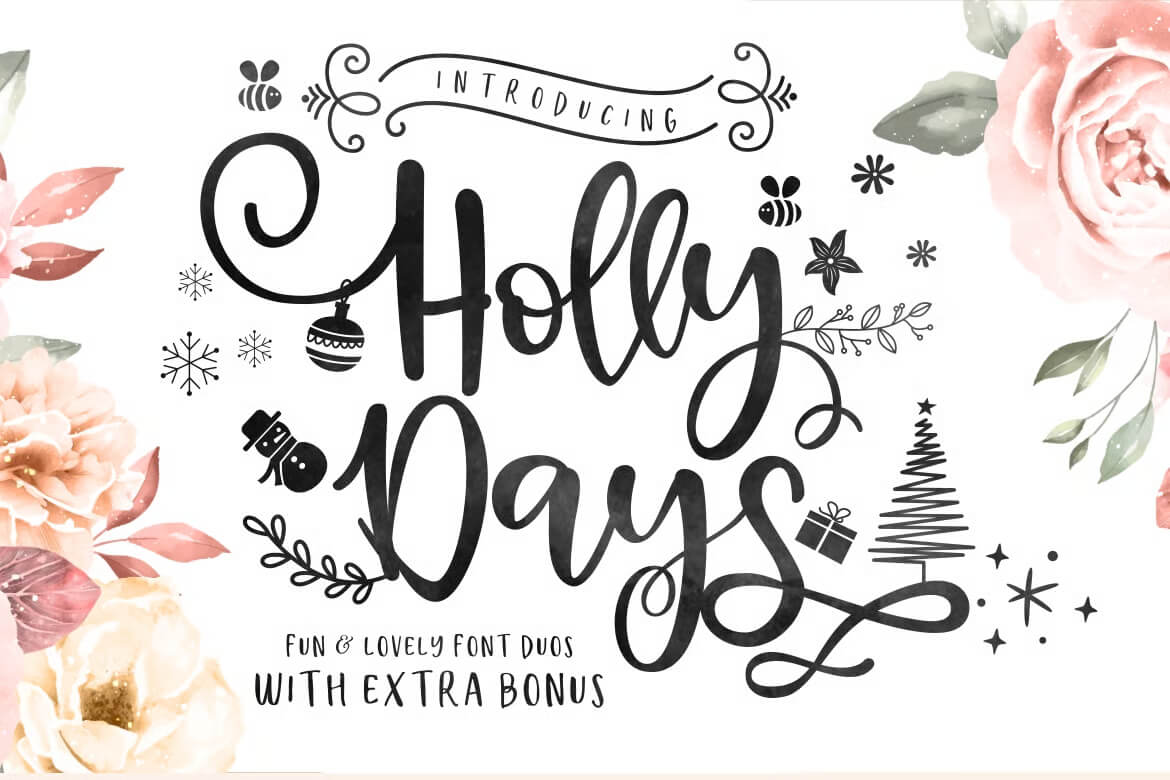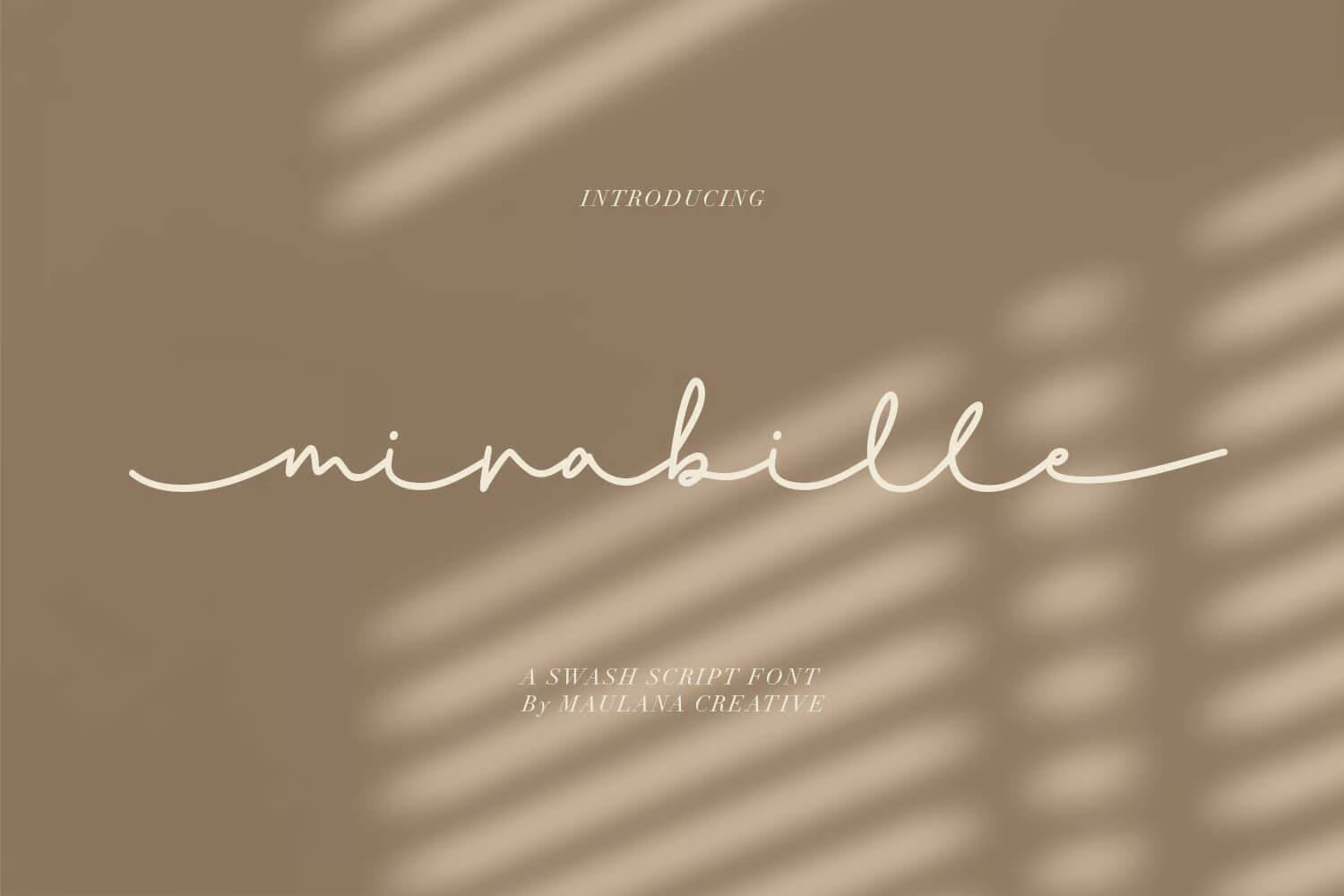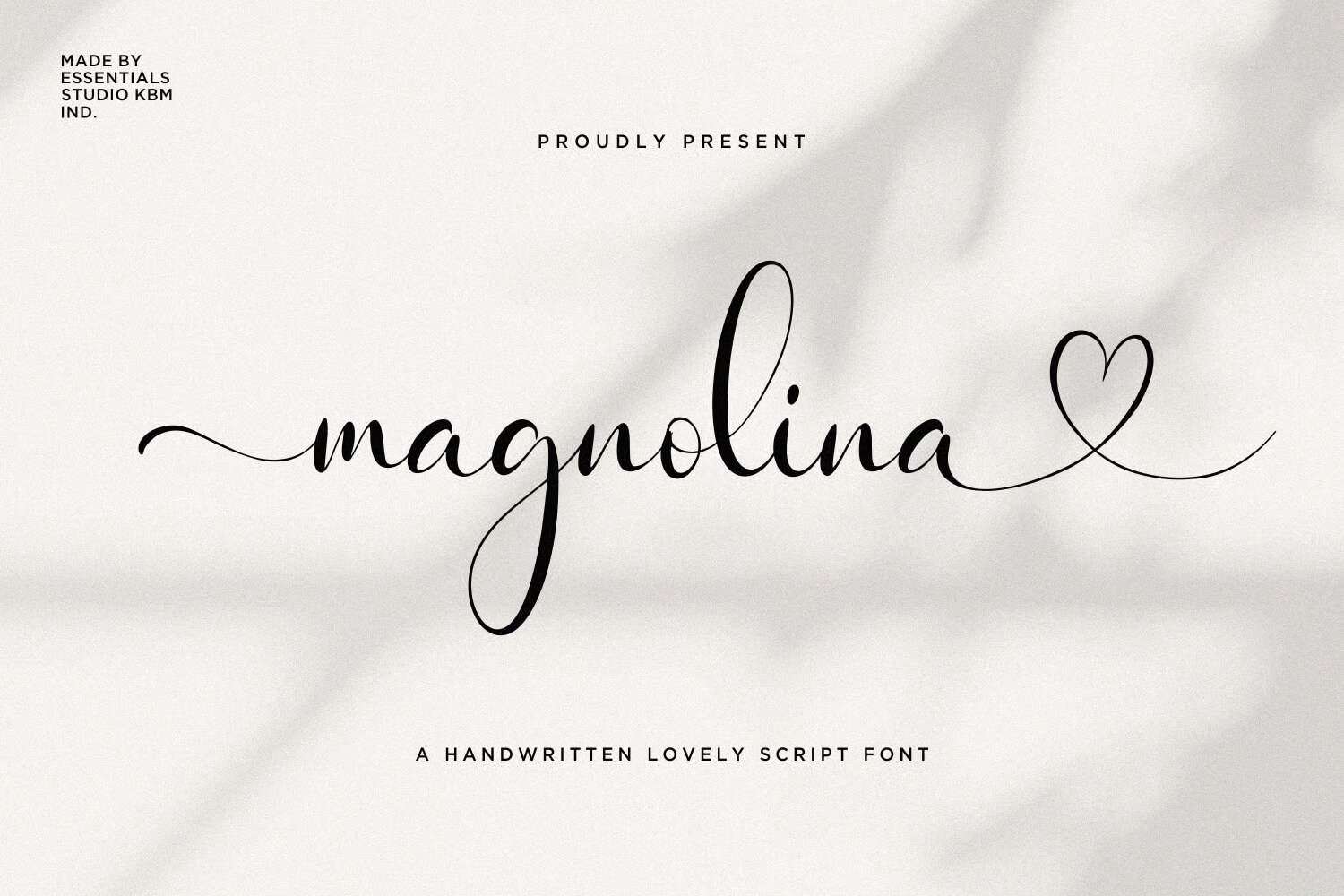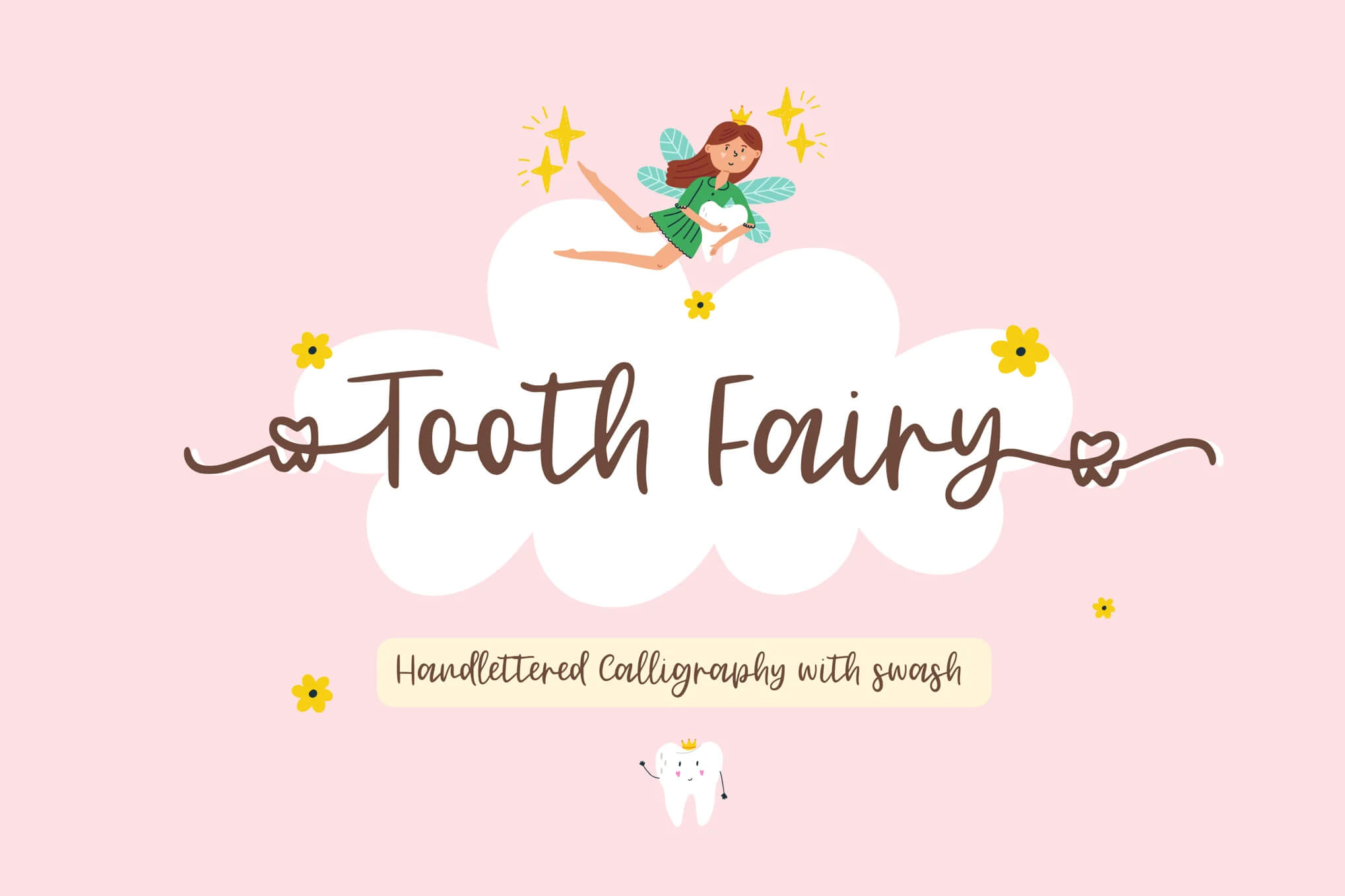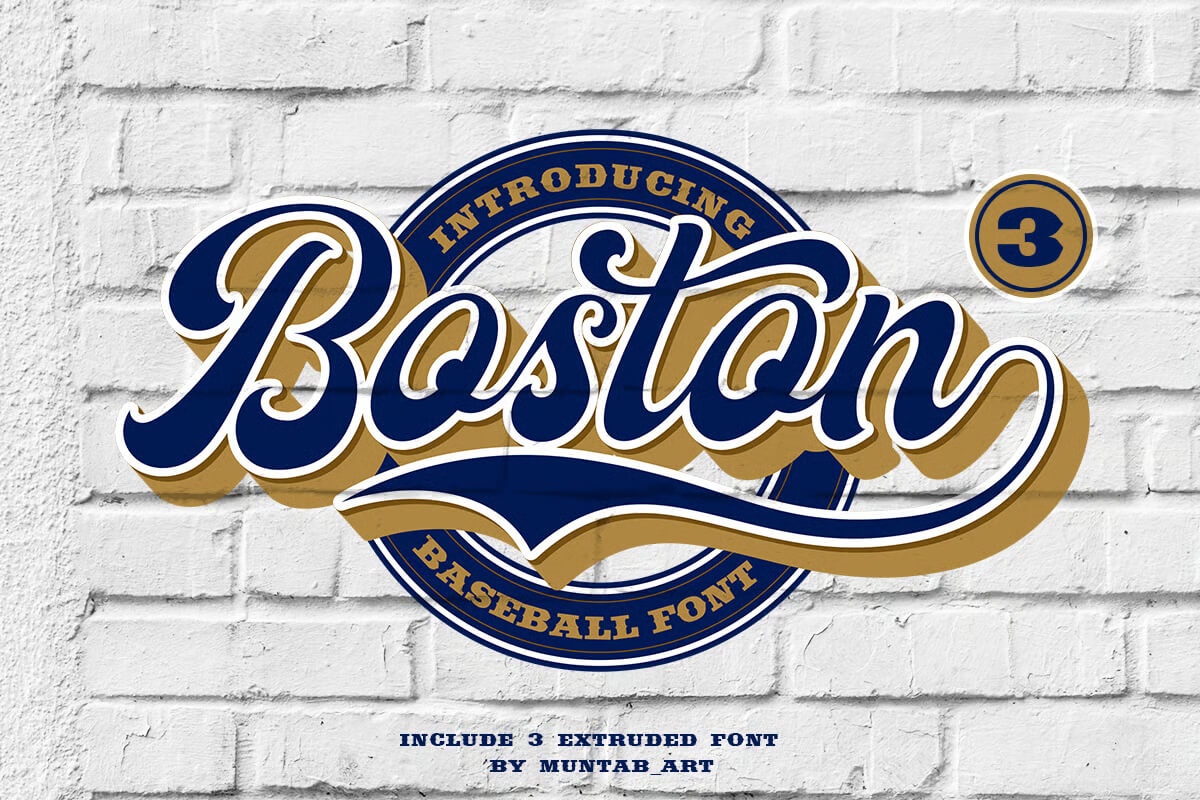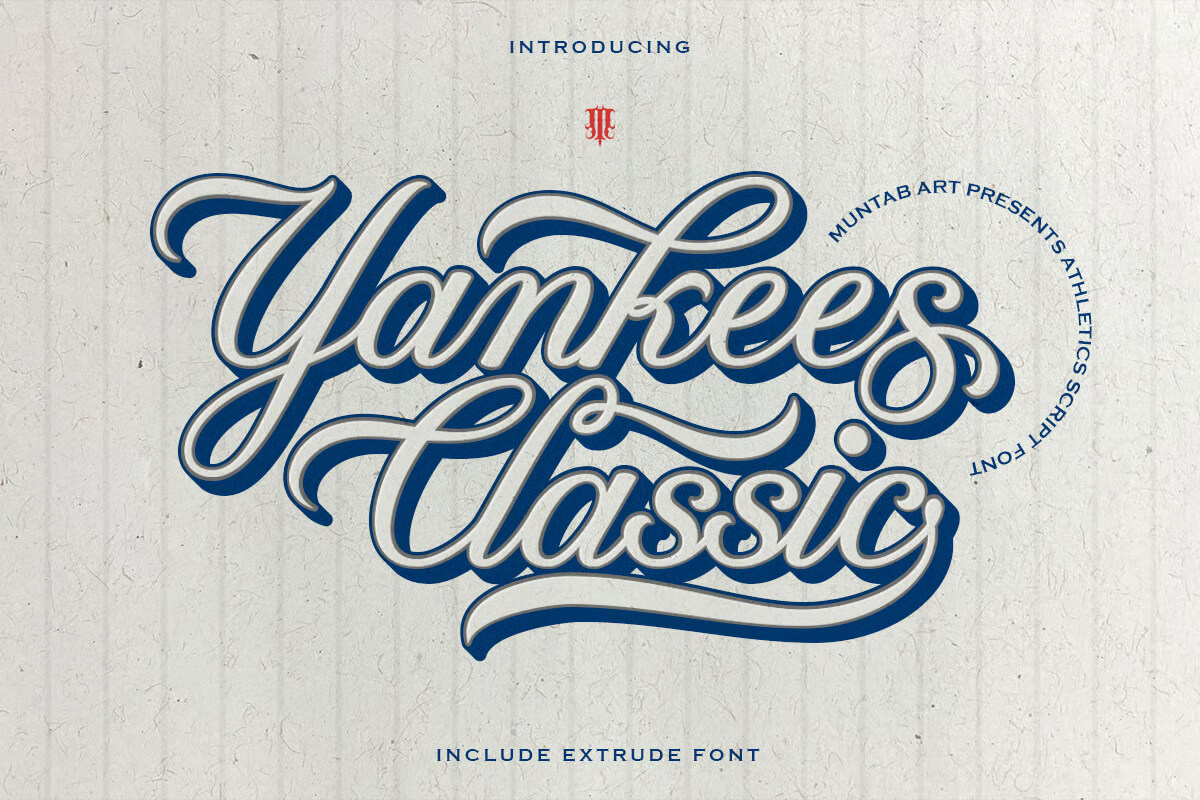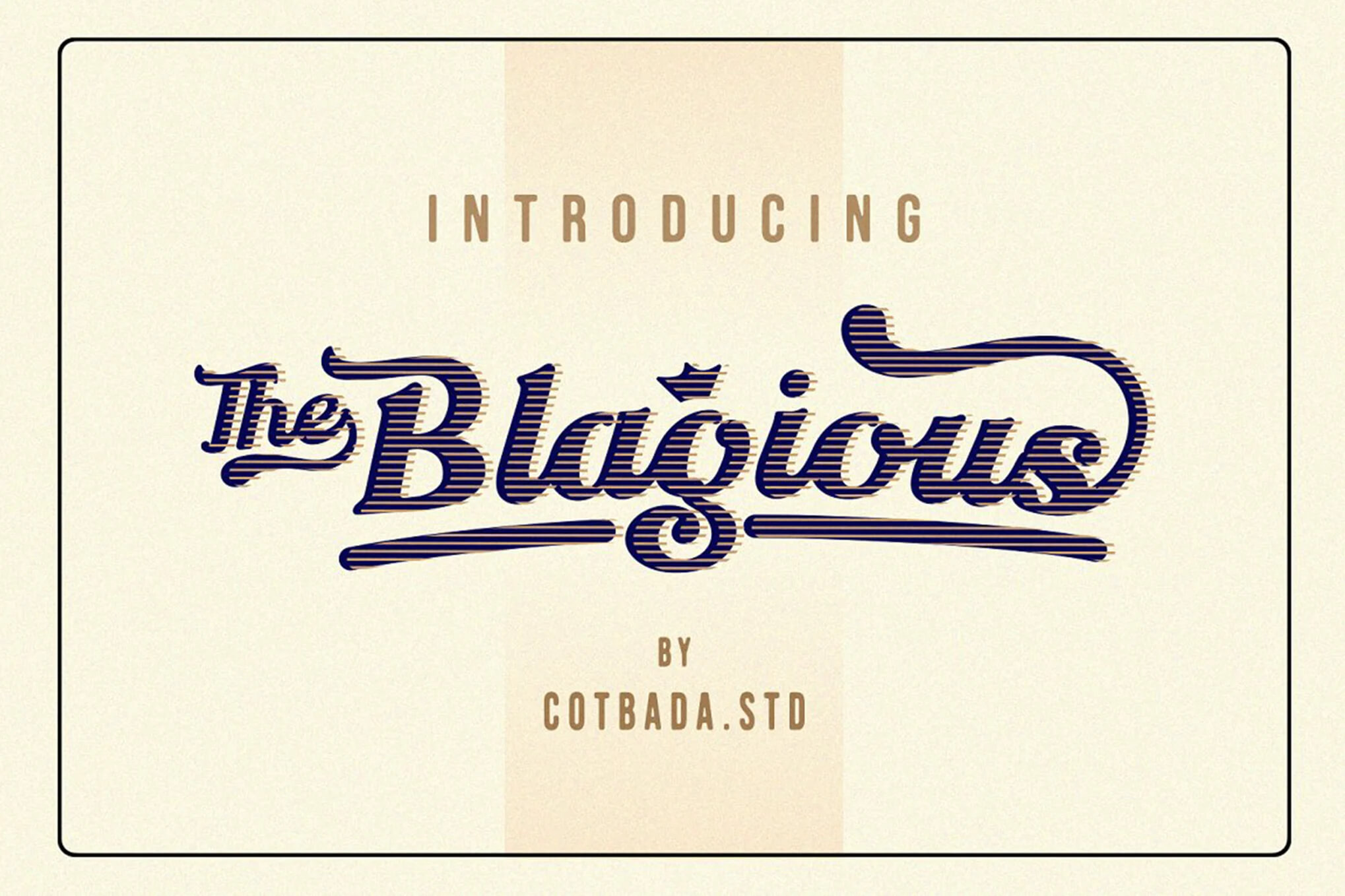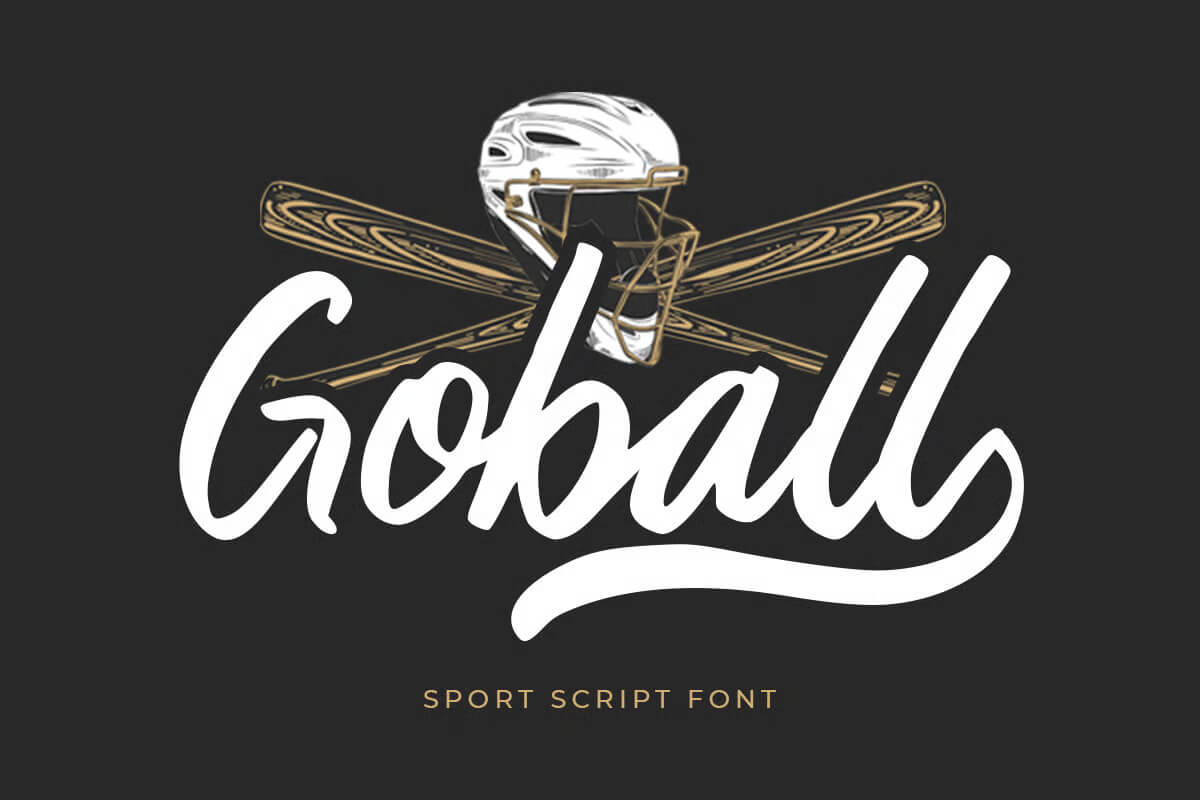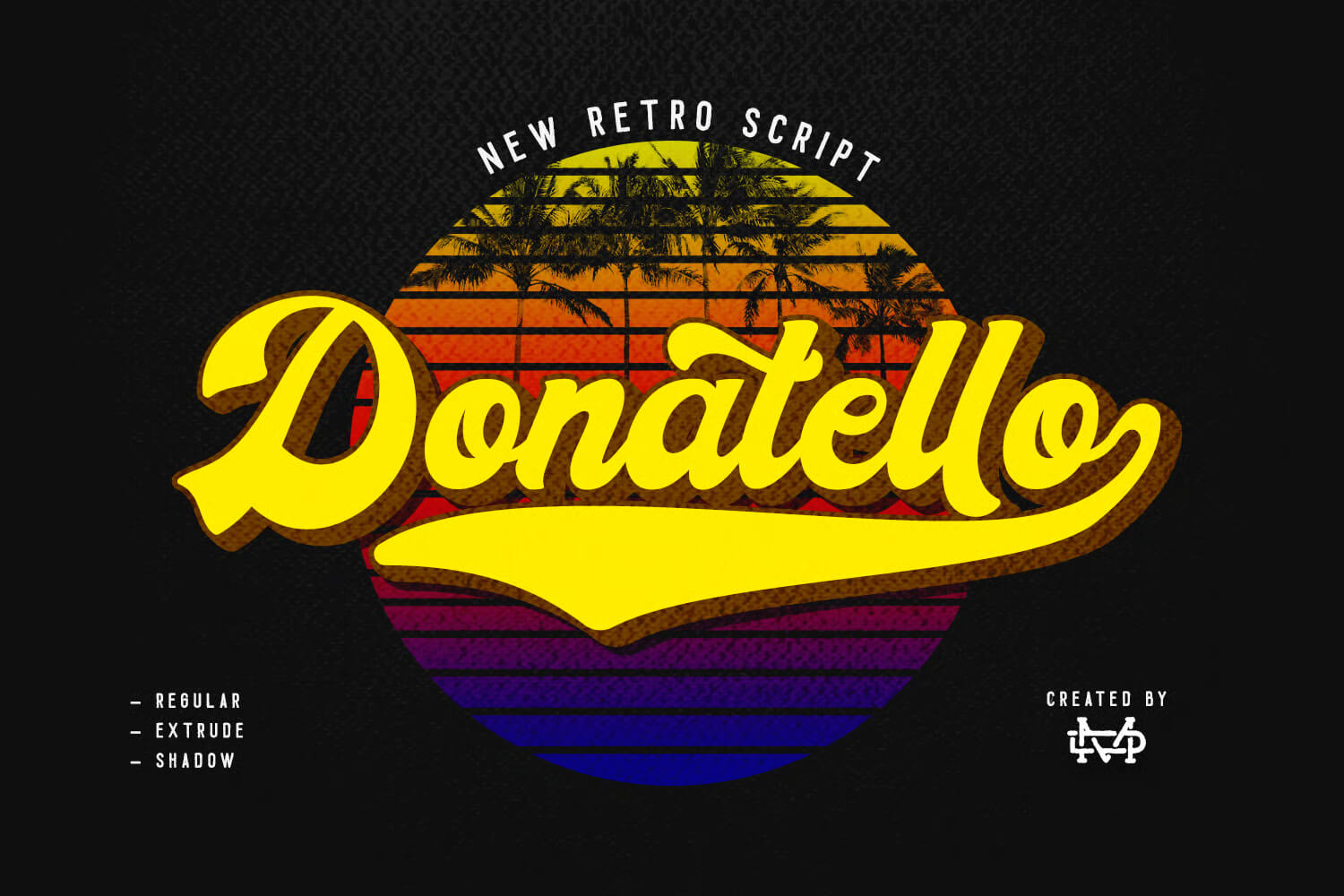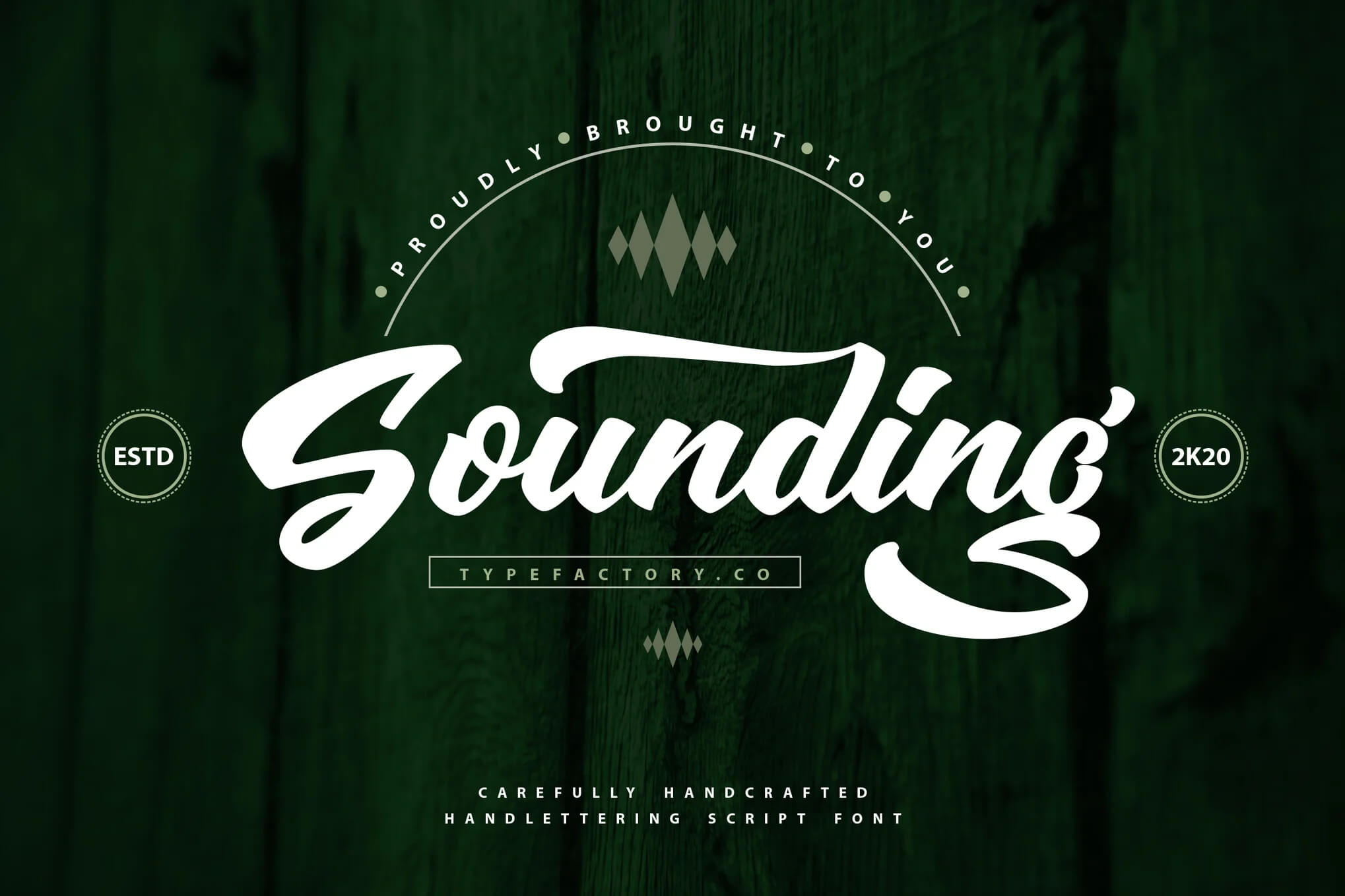
17 Fonts With Tails: Swash Fonts for Cricut
Looking for a font with long tails that adds flair, personality, and a touch of elegance to your design? As a graphic designer, this is something I always have to do.
Whether you’re crafting wedding invitations, designing your first signature logo, or putting together a bold Cricut project, finding the right script font with tails can make your entire design come alive.
It’s that finishing stroke, the swash, the tail, the twist, that turns words into something unforgettable.
I’ve pulled together my favorite font collection, from jaw-dropping fonts with long tails to free Cricut fonts with tails you can start using right now. All in one place.
These fonts don’t just spell out your message. They swirl it, wave it in the air, and leave a little sparkle behind.
Let’s dive in.
1. Mongtar
This font feels like something you’d use on a holiday card or a cozy winter label. It’s got that slightly playful, handwritten script vibe with just enough swirls to feel festive but not over-the-top. Warm, decorative, and charmingly nostalgic.
2. Holly Days
Holly Days is that kind of font that instantly feels hand-crafted and full of charm. It’s playful without trying too hard and adds this effortless swirl to every letter. Perfect for festive designs or anything that needs a little personality and warmth baked right in.
3. Mirabille
Mirabille feels like your signature got dressed up for a night out. It’s soft, graceful, and full of personality, with those long swashes that look handwritten but polished, making it a top choice in typography. Perfect for when you want a design to feel fancy but still personal.
4. ES Magnolina – Script with love Tails and Swash
ES Magnolina feels like writing a love note with a vintage pen. It’s soft, swirly, and full of character. The tails and swashes add just the right amount of flair without overdoing it. Perfect for wedding invites, romantic brands, or anything that needs a personal, handwritten touch.
5. Tooth Fairy Handlettered Calligraphy with Swashes
Tooth Fairy is playful with a hint of elegance, like a mix between a handwritten note and a storybook title. It’s got that whimsical, swirly energy that makes it perfect for kids’ projects, logos, or anything that needs a little sparkle and charm.
6. Baligate – Swash Font (curly tails)
Baligate is one of those fonts that instantly feels romantic without trying too hard. It’s soft, swirly, and has those dreamy swashes that make your text feel handwritten in the prettiest way. Perfect for weddings, love notes, or anything feminine and fancy.
7. Boston – Baseball Script font
The Boston Baseball Script font feels like old-school charm with a modern twist. It’s got that classic ballpark vibe—curved letters, confident strokes, and just the right amount of swagger. Perfect for bold headlines, sporty branding, or anything that needs serious attitude.
8. Yankees Classic – Athletics Font
The Yankees Classic font feels like a nod to old-school baseball charm. It’s bold, curvy, and has that unmistakable vintage script energy that makes you think of team jerseys, stadium lights, and Saturday afternoons at the ballpark. Clean, classic, timeless.
9. Blagious Bold Script
Blagious Bold Script feels like retro got a modern makeover. It’s loud in the best way, with chunky curves and a cool handwritten flair that screams personality. Think vintage diner signs, band posters, or bold branding that wants to be remembered.
10. Goball
This font has that bold vintage flair that makes any design feel instantly cooler. It’s got thick strokes, dramatic curves, and just the right amount of retro swagger. Perfect for standout headlines, logos, or anything that needs a strong throwback vibe.
11. Donatello Script
This font brings a bold vintage vibe with confident curves and a handcrafted flair. It feels strong yet playful, like something you’d spot on an old-school diner sign or retro merch. Perfect when you want your text to stand out loud.
12. Sounding – Script Font
The Sounding Script font feels like it was pulled straight from a vintage baseball tee. It’s smooth, stylish, and carries that perfect handwritten flair without trying too hard. Great for logos or merch that needs character and motion.
13. Altoys Typeface
Altoys feels like it was made for old-school baseball posters and vintage diner menus. It has that confident, all-American vibe with smooth curves and strong strokes that stand out. It’s bold, fun, and brings serious retro charm to any design.
14. Richer – Vintage Bold Script Font
Richer feels like a font that walked straight out of a vintage sign shop and into your branding mood board. It’s bold, swirly, and full of personality, very much a baseball font with a tail. Perfect when you want your logo or headline to feel handcrafted but still polished and powerful.
15. Fragney
Fragney feels like the varsity jacket of script fonts. It’s bold, smooth, and full of motion, with athletic curves that give every letter a sense of swagger. Perfect for sports tees, logos, or anything that needs a confident, winning vibe.
- ✓ Always test cut small designs first
- ✓ Use software to access alternate characters and curly swashes
- ✓ Match fonts with your brand’s style—romantic, modern, sporty, or playful
- ✓ Weld carefully in Cricut so those beautiful tails don’t get chopped off
- Most importantly? Let your fonts express the personality of your design
If you made it this far, you’re clearly serious about making your work stand out.
Let your fonts do the talking, with a tail that leaves an impression.